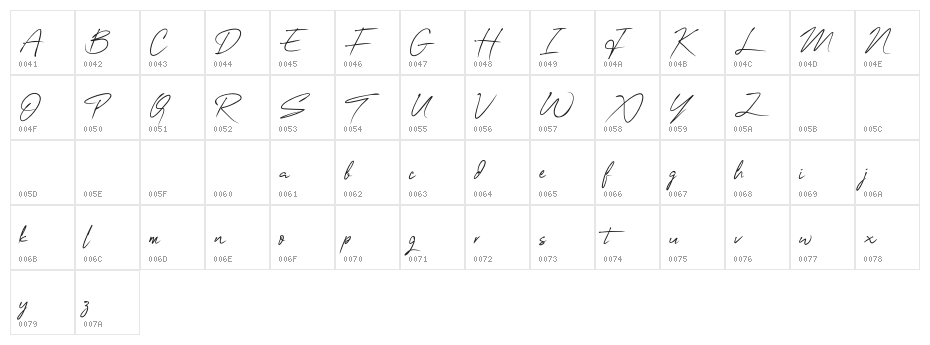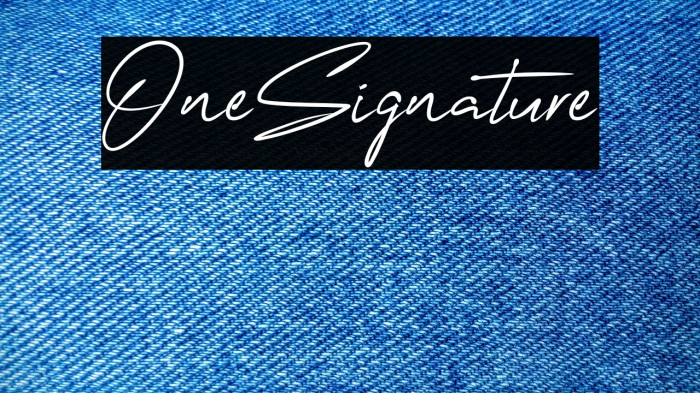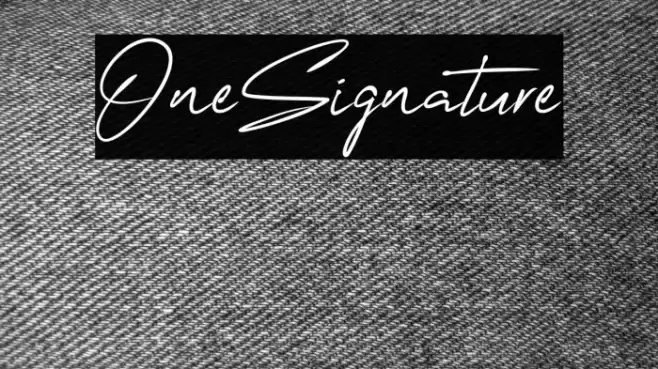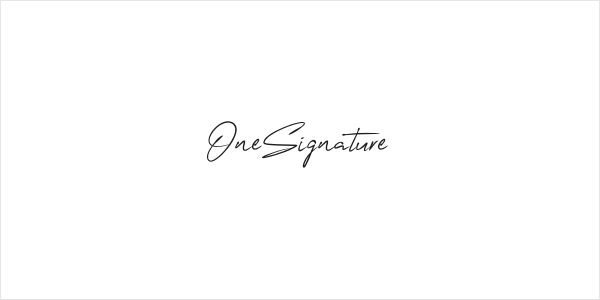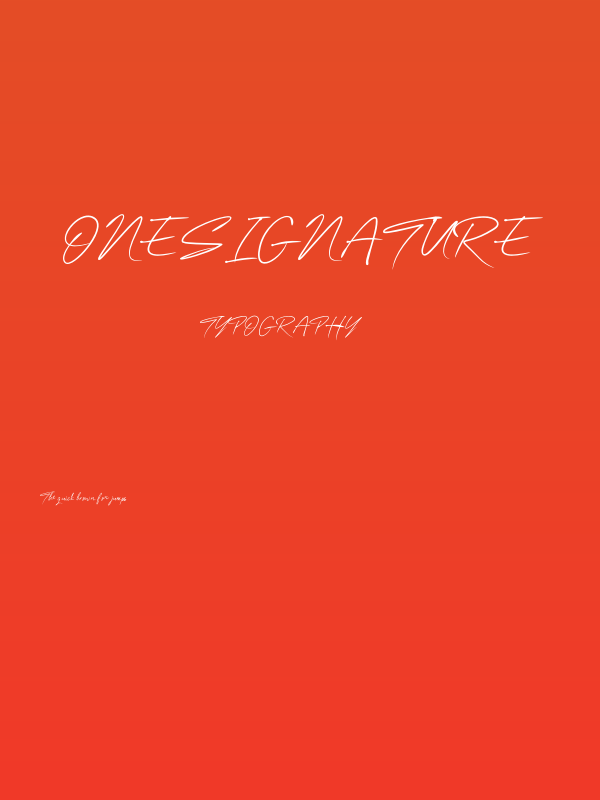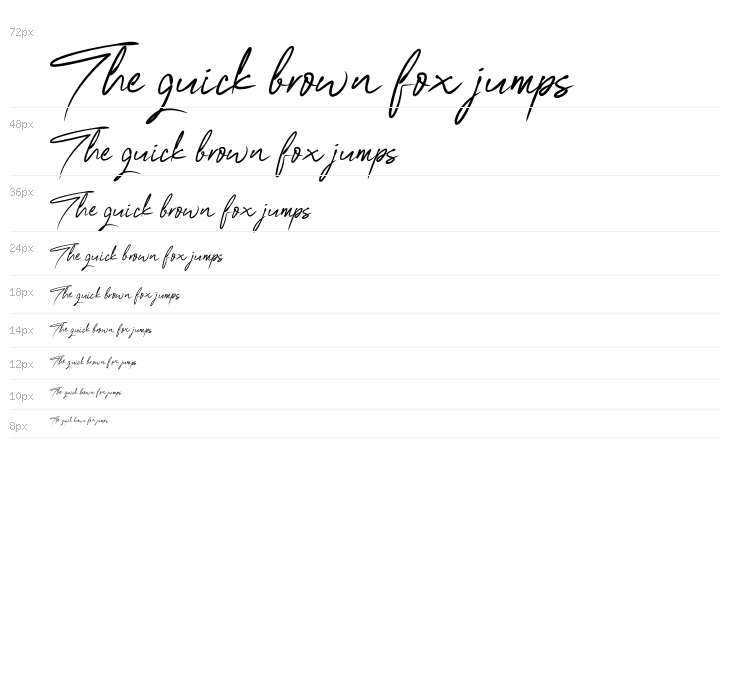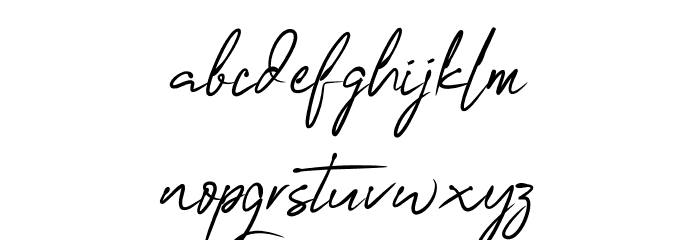
OneSignature Font
OneSignature Description
This font exudes a sophisticated and elegant handwritten style, reminiscent of a personal signature. The uppercase letters are gracefully elongated, with fluid strokes that convey a sense of motion and fluidity. The lowercase letters maintain a consistent flow, with smooth curves and a slight slant that enhances the handwritten effect. The overall appearance is both stylish and legible, making it suitable for a variety of design applications. The font's unique character is further emphasized by its balanced contrast between thick and thin strokes, adding depth and interest to each letterform.
| Proposed Projects | Ideal for personal branding, invitations, greeting cards, and elegant logo designs. |